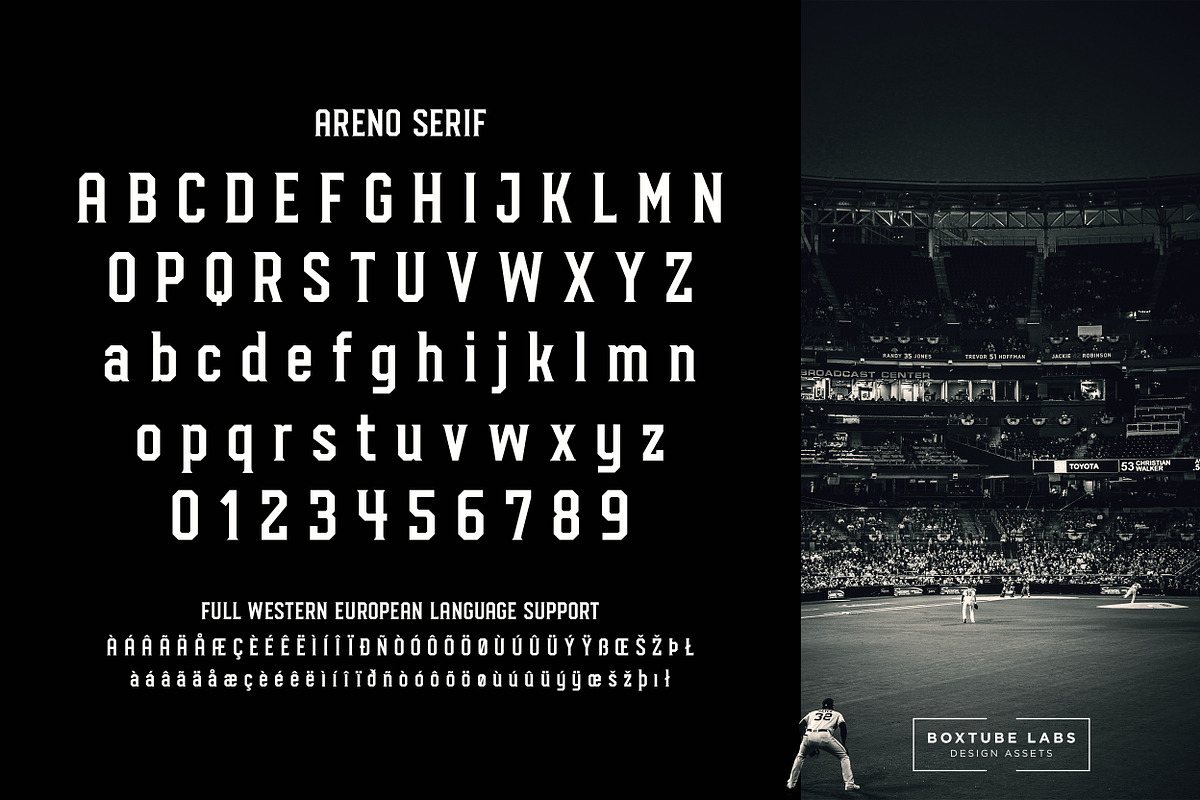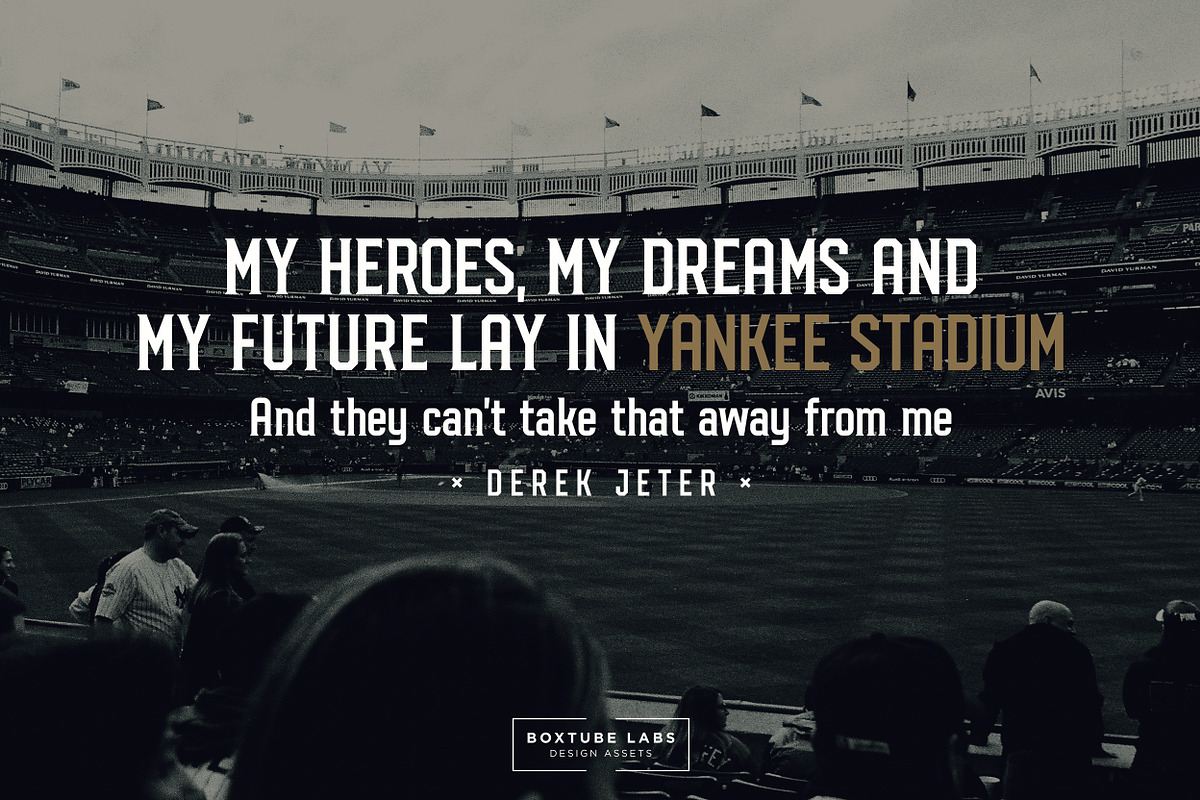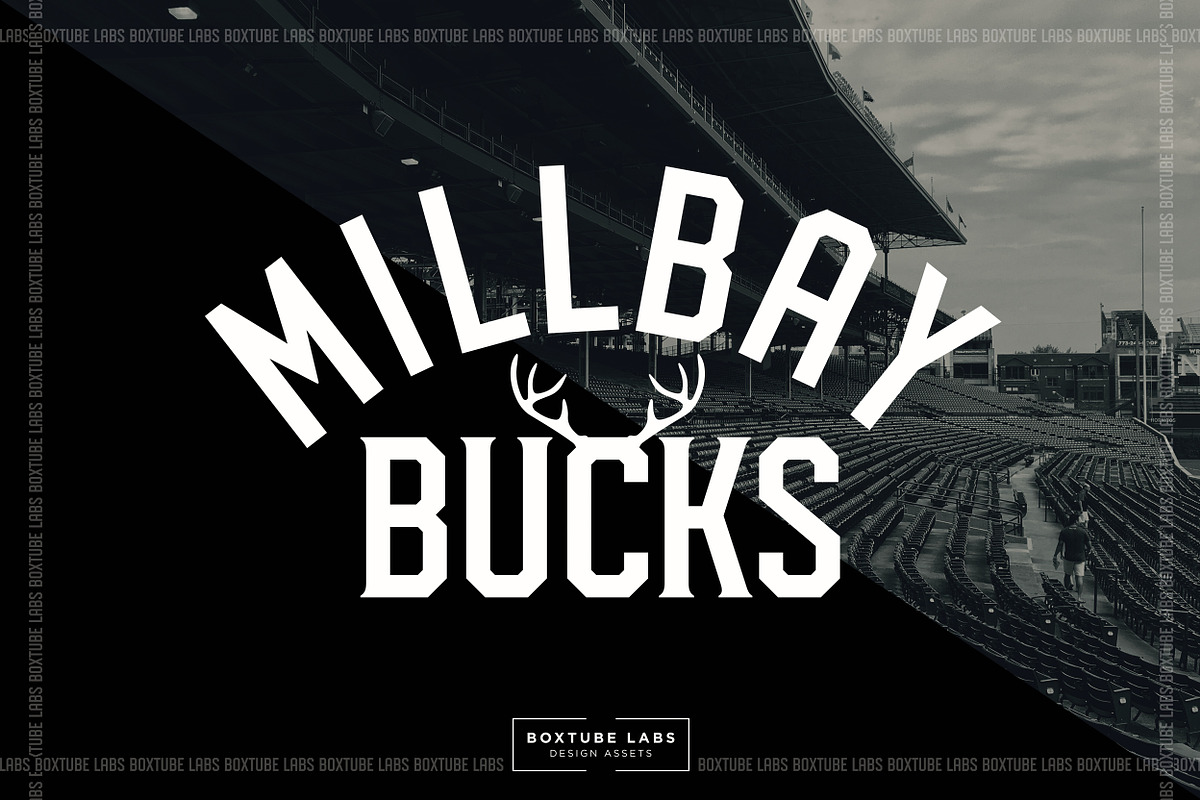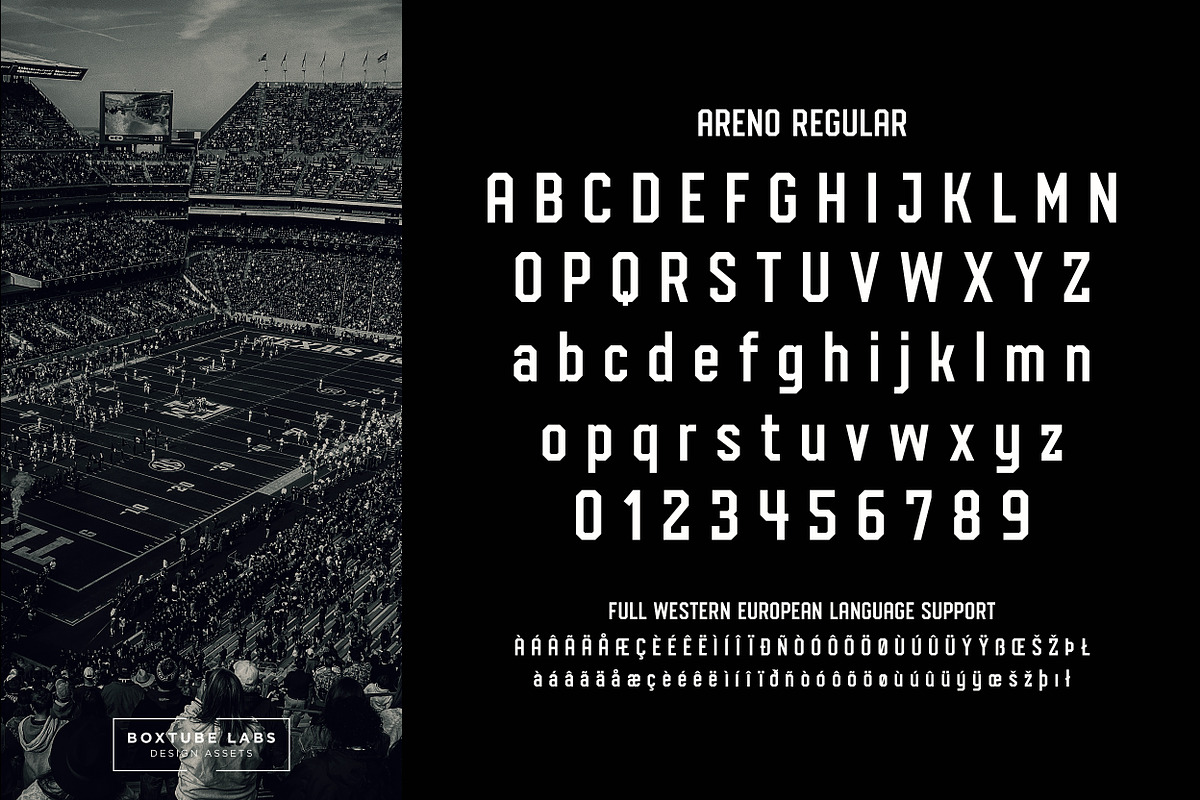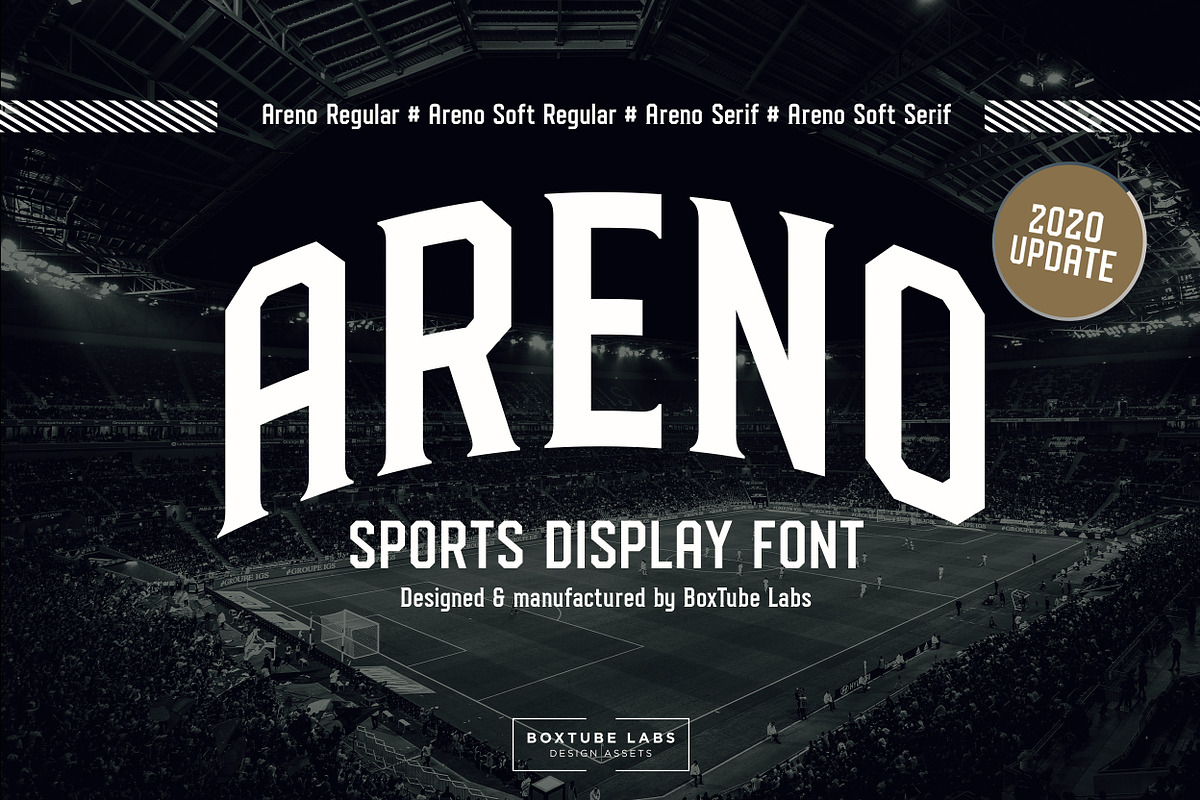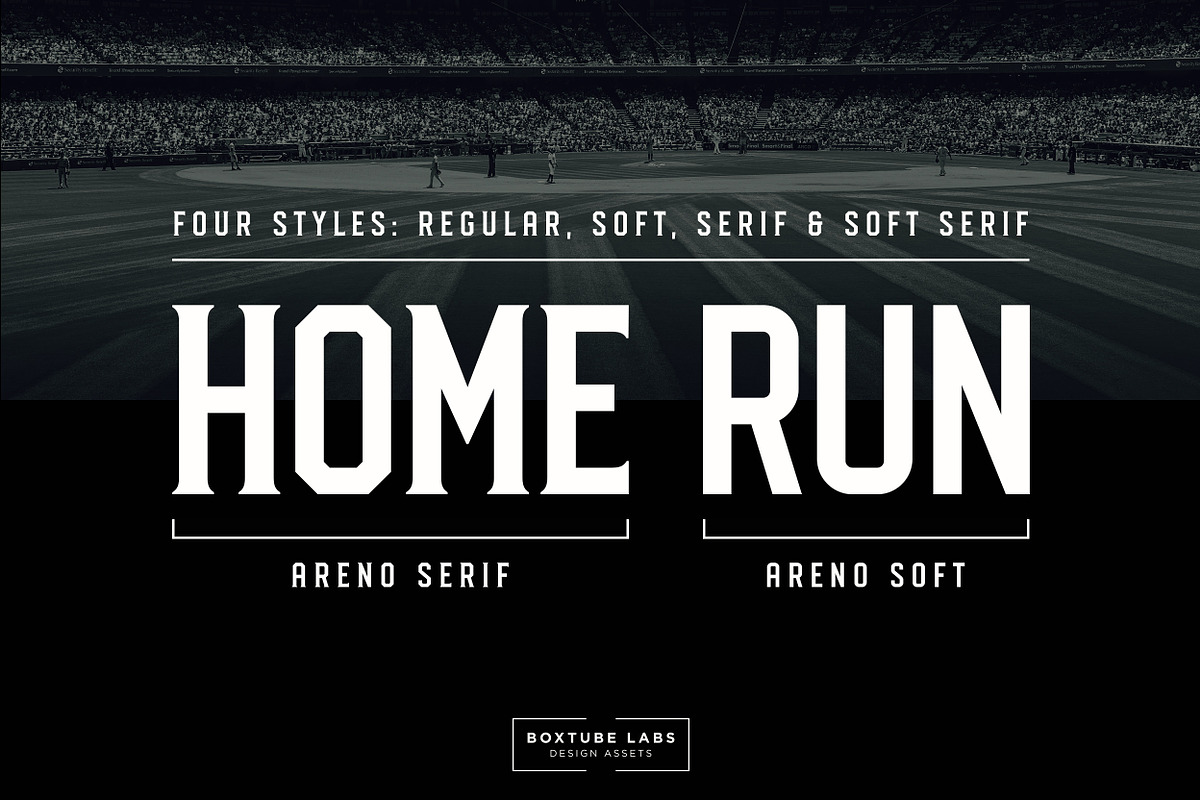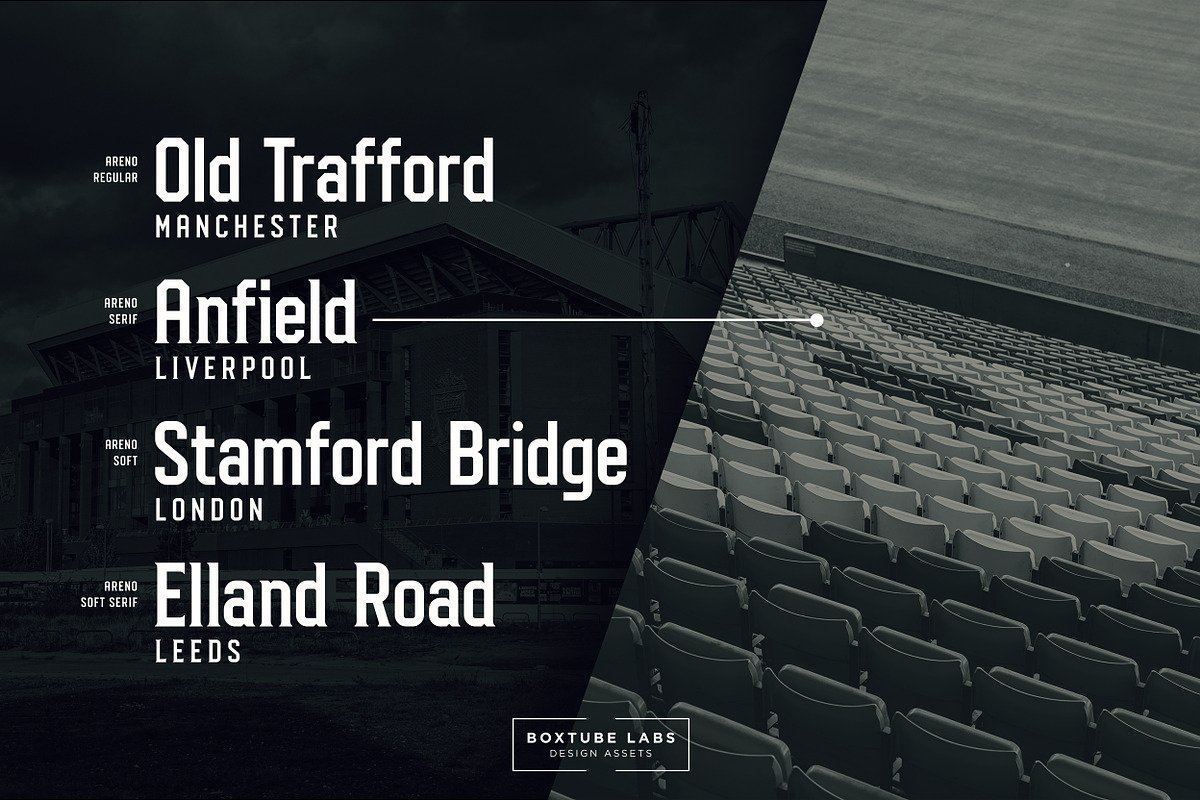
Areno - Display Font
Areno - Display Font by BoxTube Labs is a font selected for branding, posters, packaging, typography.
- We've also added lowercase letters to the family.
- Areno Regular
- Areno Serif
- Areno Soft Regular
- Areno Soft Serif
Areno - Display Font by BoxTube Labs fits naturally into Branding, posters, packaging, typography.